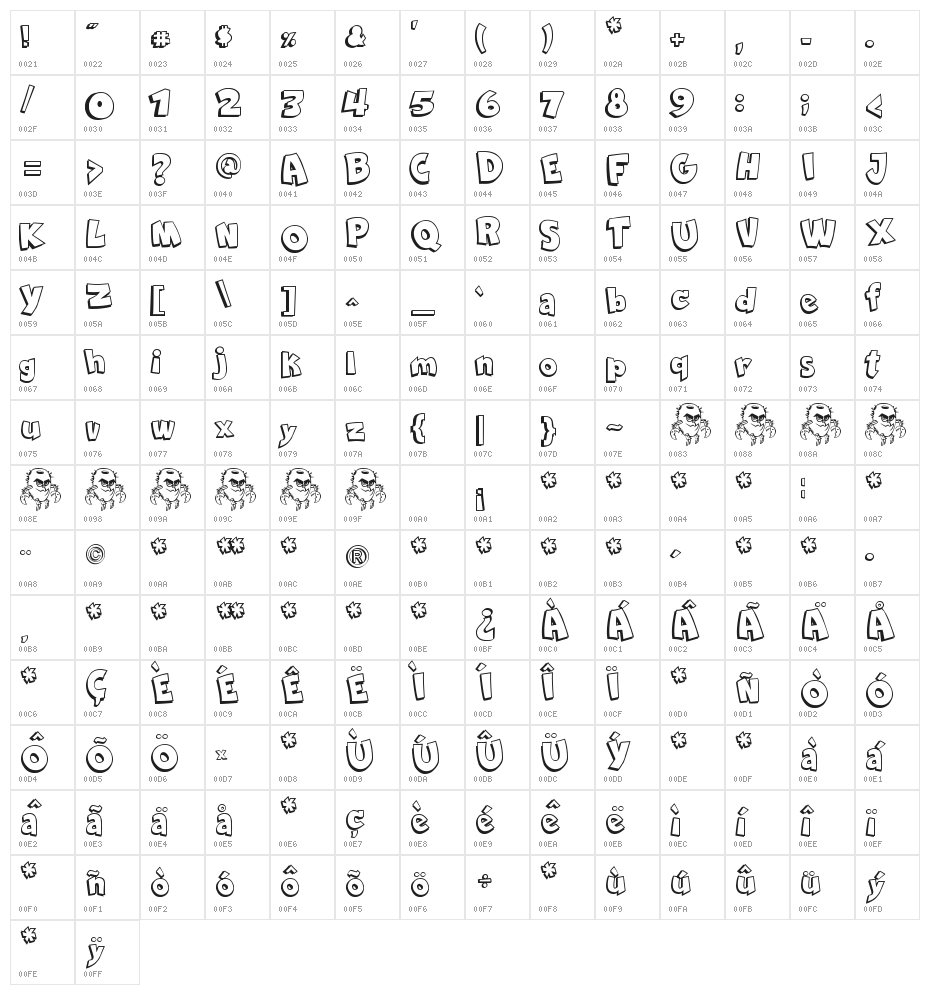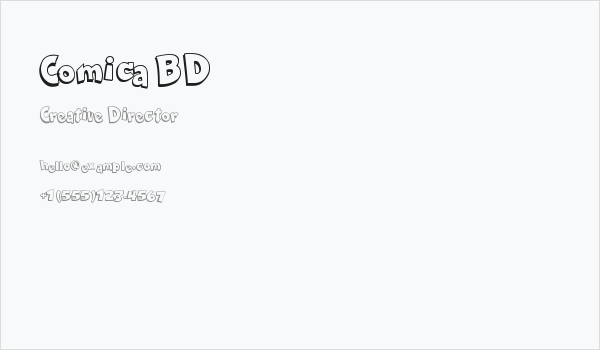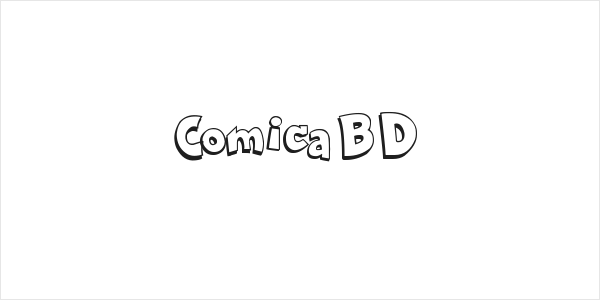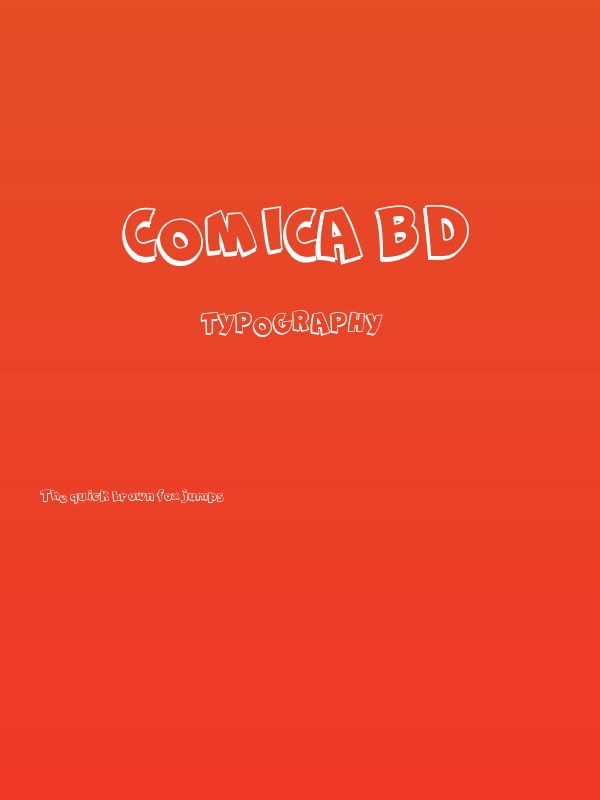
Comica BD Font
| Stile generale | Playful, Cartoonish |
| Progetti proposti | Ideal for comic books, children's books, playful branding, posters, and any project requiring a fun, energetic typeface. |